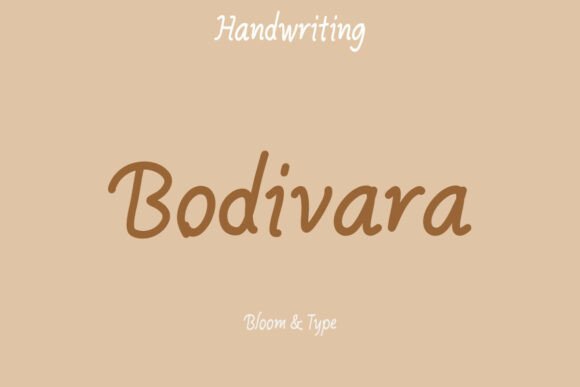
Unleash the Charm of Handwritten Style with Bodivara Font
Have you ever scribbled down a heartfelt message in a worn notebook, the ink bleeding through the pages as you poured your thoughts onto paper? For many of us, handwritten notes evoke a sense of nostalgia and warmth, a tangible connection to the people and moments that matter most. It’s this very essence that the Bodivara Font captures, distilling the beauty of everyday handwriting into a stunning digital typeface.
Designed to evoke the feeling of a personal, handwritten note, Bodivara Font brings a touch of elegance and warmth to any creative project. Its versatility makes it a valuable asset for designers, who can use it to craft engaging logos, quotes, social media graphics, and product packaging that feels natural and inviting. With its balanced letterforms and soft strokes, Bodivara Font is the perfect choice for anyone seeking to add a human touch to their designs.
Bodivara Font Key Features
- Font Family: Bodivara
- Font Style: Sans-serif, elegant script
- Unique Characteristics: Unique, elegant script style with intricate details and subtle flair, ideal for creative and design-focused applications
Bodivara Font Review
As a designer, I’ve had the chance to work with a variety of fonts, and I’m excited to share my thoughts on Bodivara. ✨ This font has a unique charm that immediately caught my attention. The combination of elegant and modern elements creates a versatile design that can be used in a wide range of projects.
Here are some of the things that work well with Bodivara:
- ✨ Elegant and sophisticated feel, perfect for luxury or high-end brands.
- ✨ Good legibility, making it suitable for body text and long passages.
- ✨ Wide range of weights and styles, allowing for easy customization.
- ⚠️ Bodivara may not be the best choice for projects that require a bold, attention-grabbing font.
- ⚠️ Some of the weights and styles may feel slightly inconsistent, which can affect overall design cohesion.
Overall, I think Bodivara is a solid addition to any designer’s toolkit. While it may not be the perfect fit for every project, it’s definitely worth considering for designs that require a touch of elegance and sophistication. With a little experimentation and creativity, I’m confident that Bodivara can help designers create truly stunning work.
Tips for Getting the Most Out of Bodivara Font
1. Experiment with different font sizes and styles to create visual interest.
2. Pair Bodivara with other fonts to create a unique and cohesive design.
3. Use Bodivara for headings and titles to add a touch of elegance and sophistication.
Common Use Cases for Bodivara Font
2. Luxury brand marketing materials.
Alternatives to Bodivara Font for Designers
Ostrich Sans is a modern sans-serif font with a friendly, approachable feel. It is ideal for use in logos, headings, and body text where a clean and simple aesthetic is desired.
Compared to Bodivara Font, Ostrich Sans has a more geometric and minimalist appearance, making it suitable for digital interfaces and modern branding.
Playfair Display is a luxurious, high-end serif font with a classic, elegant feel. It is best used in situations where a sophisticated and refined look is required, such as in high-end branding, magazines, and luxury products.
Unlike Bodivara Font, Playfair Display has a more formal and traditional appearance, making it suitable for high-end applications where a sense of sophistication is desired.
Montserrat is a geometric sans-serif font with a strong, modern feel. It is ideal for use in urban and industrial settings, such as in logos, headings, and body text where a bold and edgy aesthetic is desired.